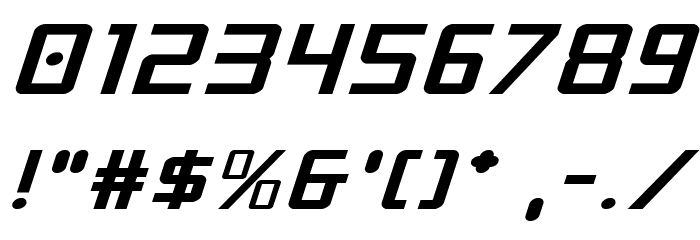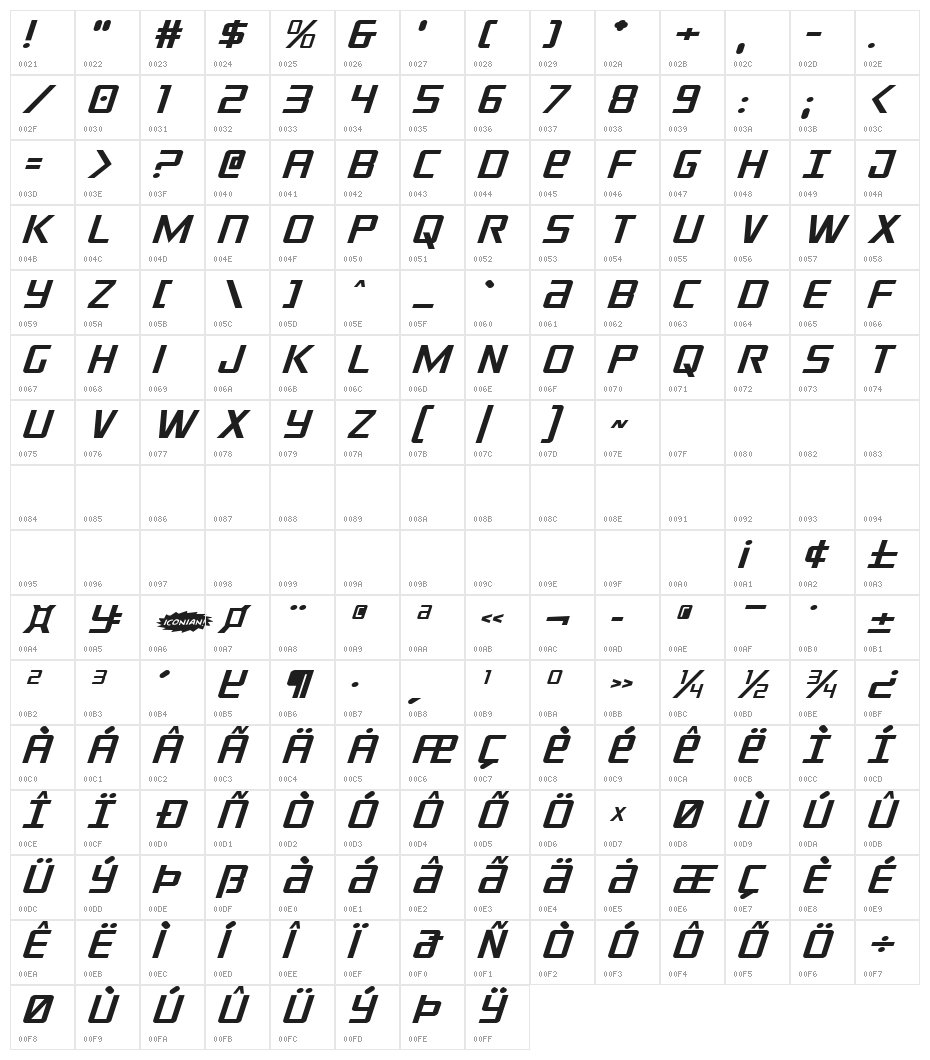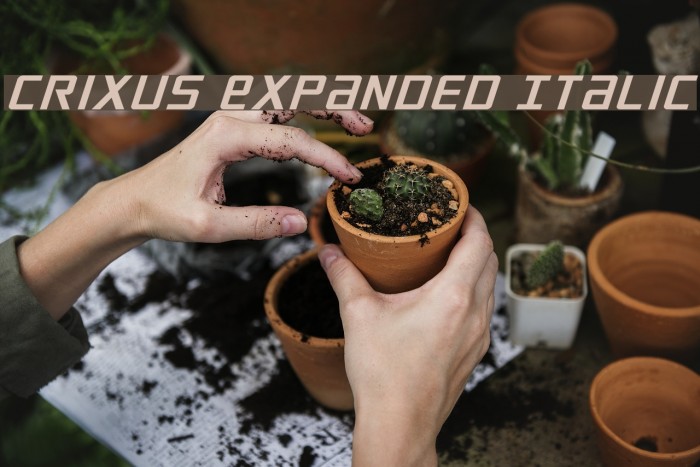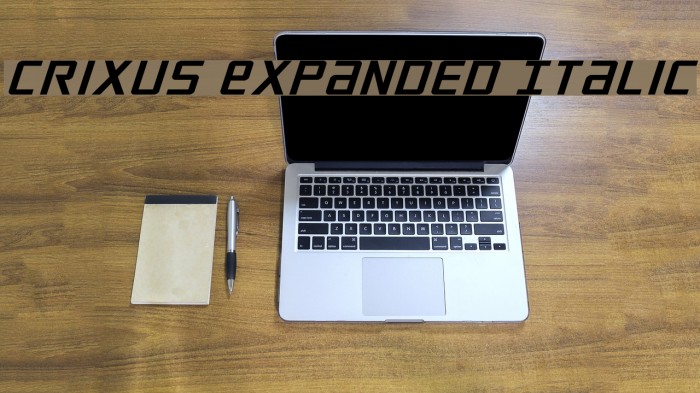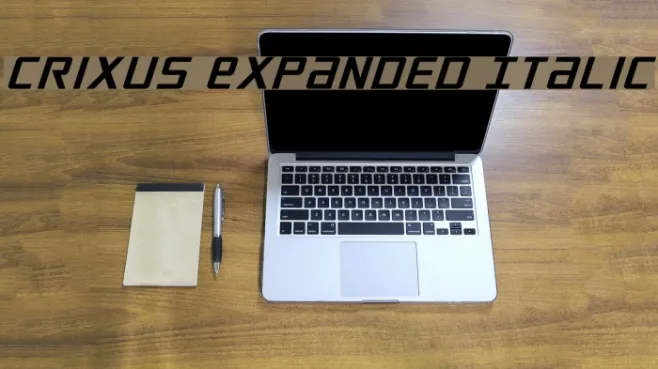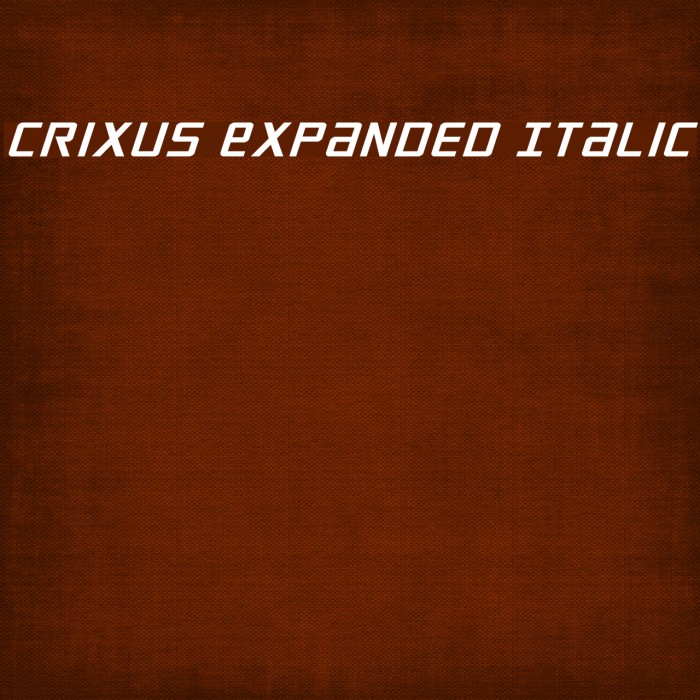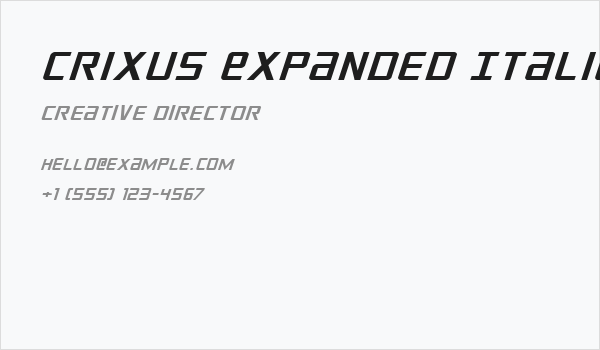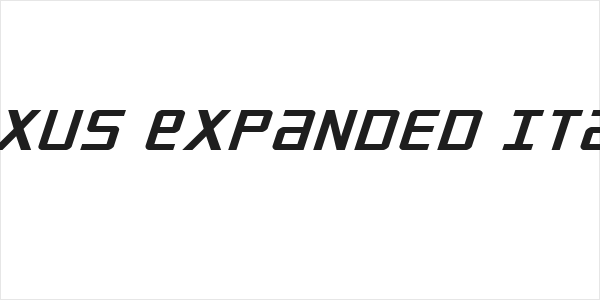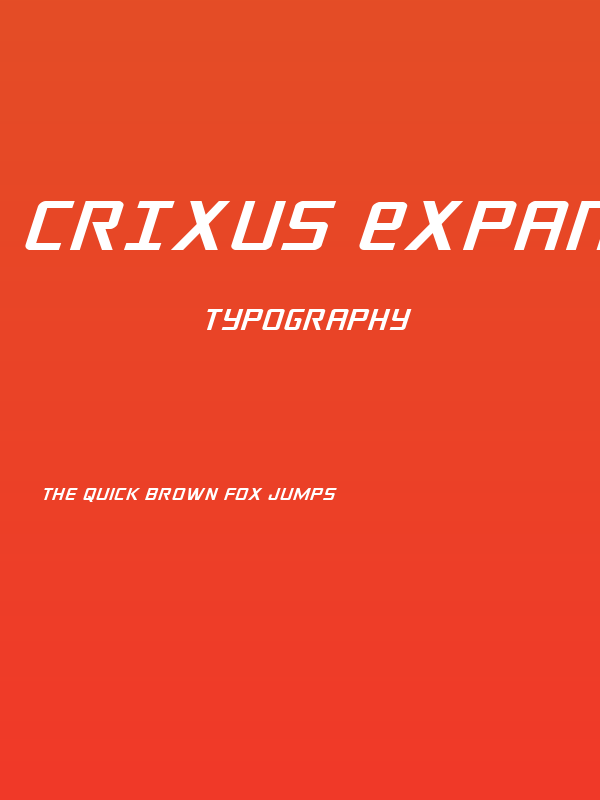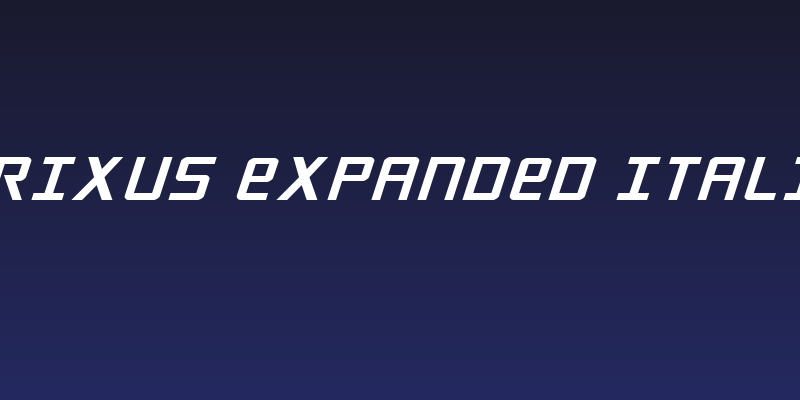
Crixus Expanded Italic Font
Crixus Expanded Italic Description
This font features an expanded and italicized style, characterized by its angular and geometric letterforms. The uppercase and lowercase letters maintain a consistent slant, giving a sense of motion and dynamism. The numerals and special characters follow the same stylistic cues, ensuring uniformity across all glyphs. The design is modern and sleek, with a futuristic edge that makes it stand out. The strokes are bold, yet the expanded width provides ample spacing, making it highly legible. This font is ideal for projects that require a contemporary and assertive look.
Use CaseHeadlines, Logos, Branding
Proposed ProjectsIdeal for branding, advertising, sports team logos, and futuristic design projects.